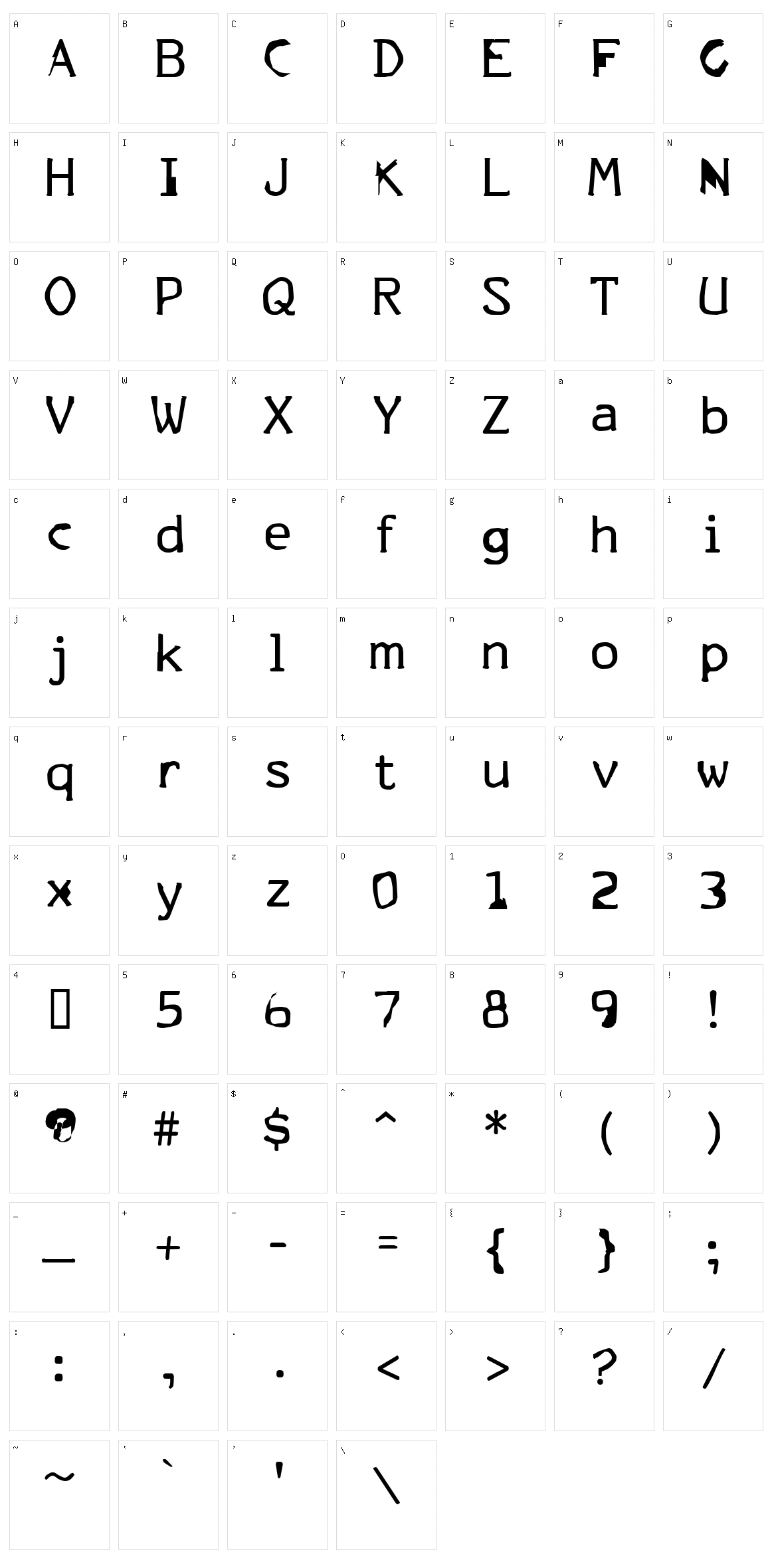
The free font FKR ParkLife is carefully designed by Fredrik K. Roemteland, showcasing a thoughtful balance of creativity and usability and falls under the Eroded font style. When you download the ZIP file, it contains only 42.8 KB of font files, making it lightweight and quick to download. Please review the license details below to understand permitted usage and distribution rights. If license information is not available, we recommend using this font for personal projects only or contacting the author directly for commercial usage permissions.